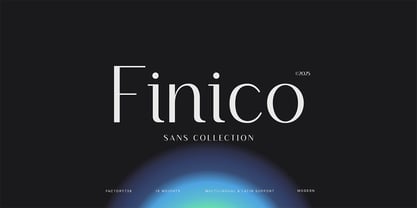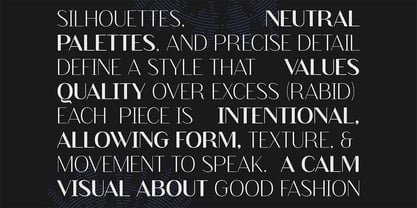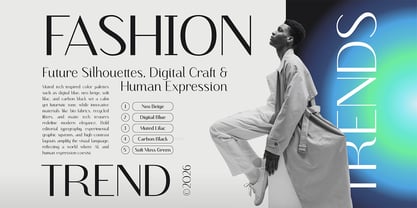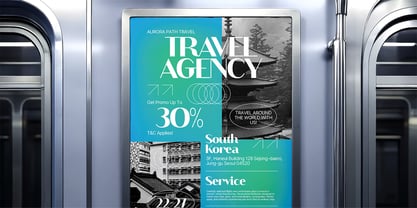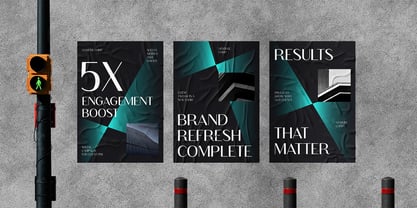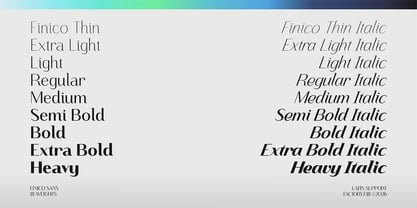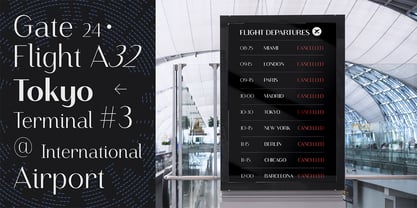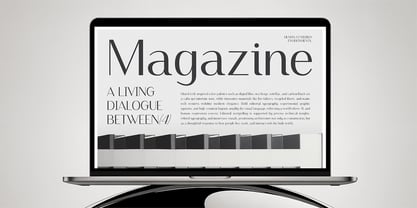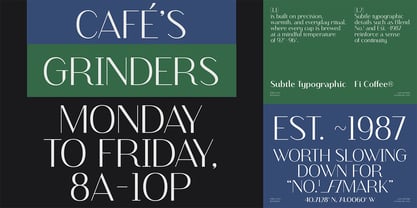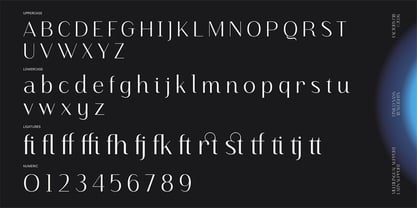
Finico Sans
by Factory738
The Finico Sans Font Family was designed by Wahyu Rahmawan and published by Factory738. Finico Sans contains 18 styles and family package options. More about this family
Finico Sans is a modern sans-serif type family designed as a clean and versatile counterpart to Finico Serif. Built with balanced proportions, open shapes, and subtle detailing, Finico Sans offers clarity and precision while maintaining a refined, contemporary character. The design emphasizes readability and rhythm, making it well suited for both editorial and functional applications. Its gently drawn curves and controlled stroke contrast give the typeface a calm, confident voice that works equally well in body text, headlines, and branding systems. The italics are restrained and fluid, adding expression without disrupting consistency. With a wide range of weights and styles, Finico Sans adapts easily to complex typographic systems across print and digital media. It is ideal for designers seeking a modern sans-serif that feels timeless, professional, and flexible—either as a standalone family or paired seamlessly with Finico Serif. Finico Sans supports Basic and Extended Latin character sets and is designed for multilingual use.
Designers: Wahyu Rahmawan
Foundry: Factory738